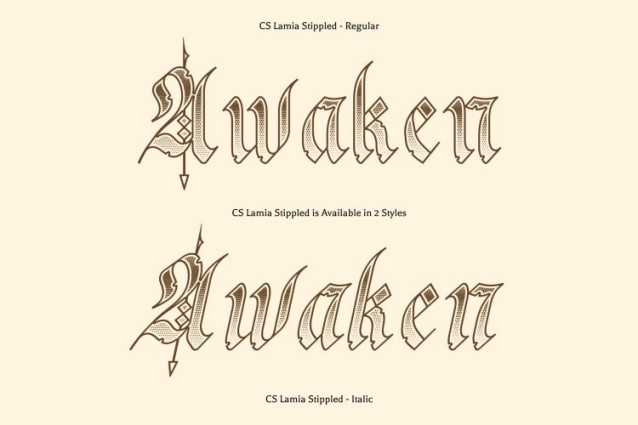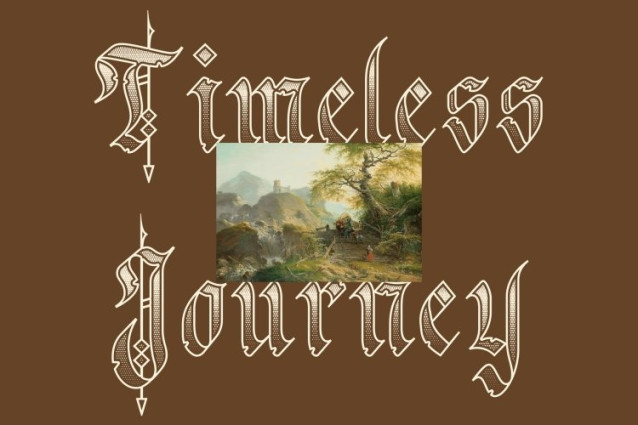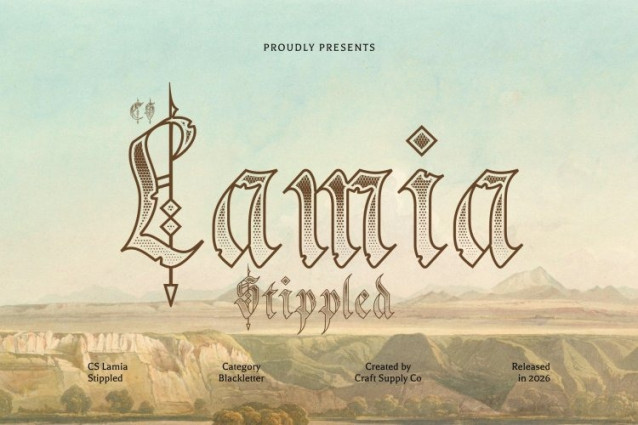
CS Lamia Stippled Font
CS Lamia Stippled Font – This is a striking blackletter display font defined by sharp, bold, and intricately decorative letterforms. Inspired by the iconic style of medieval scripts, it captures an era of rich history and artistry, evoking drama, formality, and vintage charm. The ornate construction of each character gives the font a commanding and majestic presence, making it a powerful choice for designs that demand attention.
Majestic Historical Character with Stippled Texture
Enhanced with a dense stippled dot texture, this font gains an additional layer of artistic depth. The dotwork effect resembles traditional ink stippling techniques, adding a handcrafted, engraved quality that strengthens its historical atmosphere. This textured treatment enriches the letterforms with a sense of authenticity, as if carved or printed using classic illustration methods.
Classic Elegance with Artistic Detail
The combination of blackletter structure and stippled detailing creates a sophisticated balance between boldness and craftsmanship. Sharp angles, dramatic strokes, and delicate dotted textures work together to produce a refined vintage aesthetic full of mystery and elegance.
Perfect for Traditional and Heritage-Inspired Projects
Ideal for logos, posters, book covers, packaging, and cultural or historical themes, this font delivers timeless elegance with a handcrafted feel. It brings authority, tradition, and artistic richness to any design seeking a powerful vintage impression.